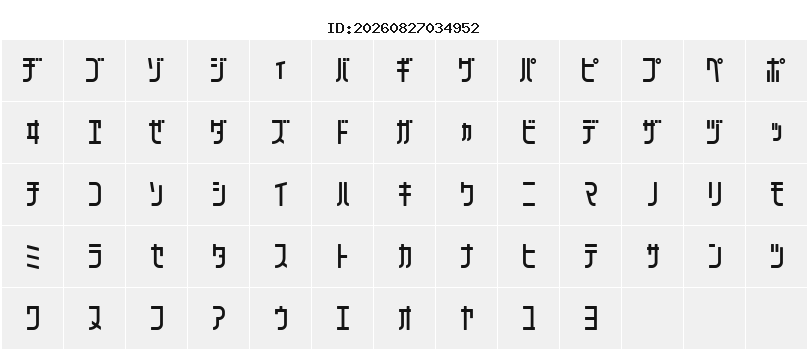
About 71mksdKt.ttf
71mksdKt.ttf is a modern, elegant sans-serif font designed for ultimate readability and visual harmony. Perfect for branding, headlines, web design, and print materials.